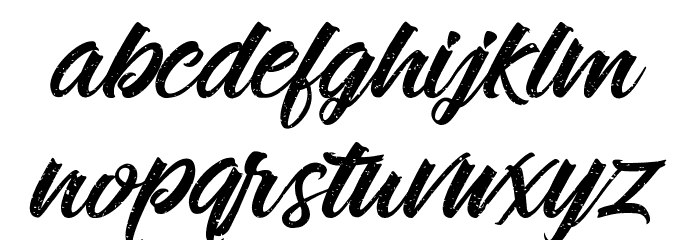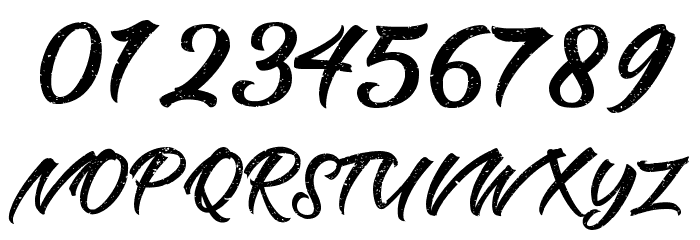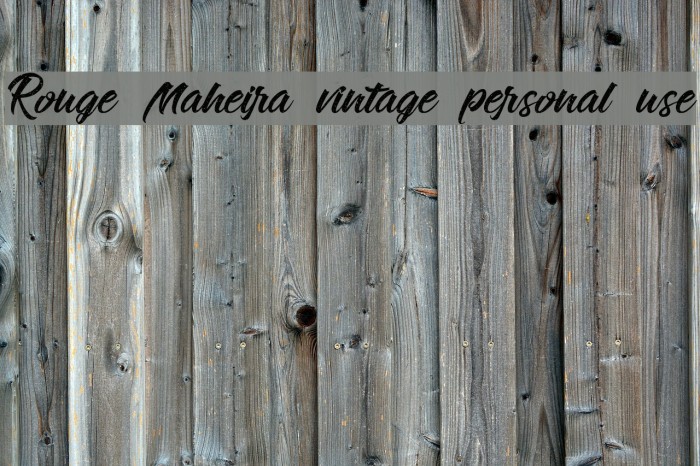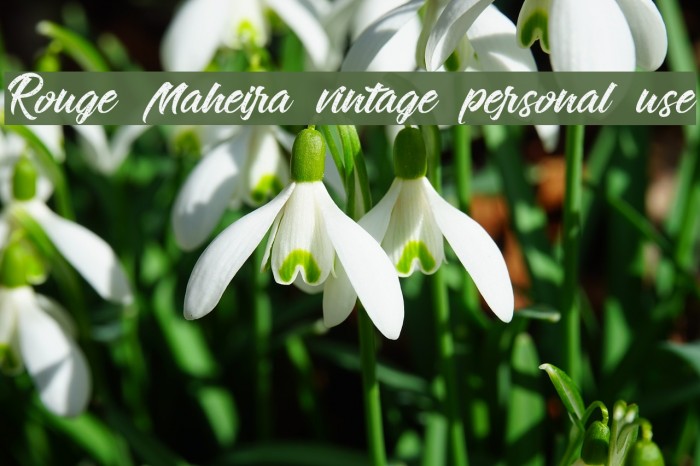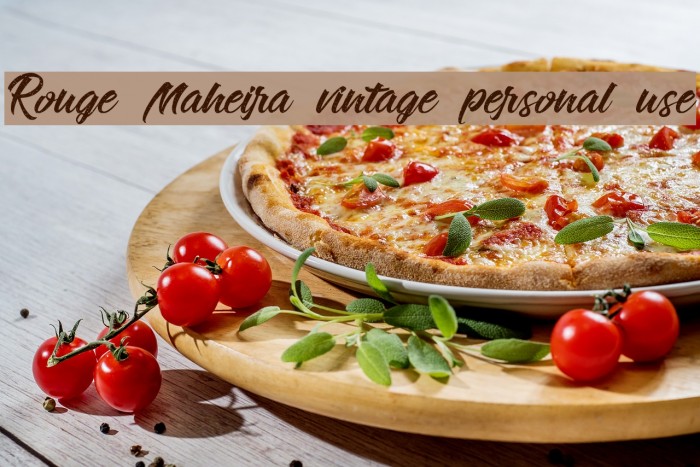
Rouge Maheira vintage personal use Font
This font features a bold, brush script style with a distressed, vintage texture. The characters are fluid and dynamic, with a hand-painted appearance that gives it a personal and artistic feel. The uppercase letters are slightly larger and more pronounced, while the lowercase letters maintain a consistent flow. The numbers are equally stylized, matching the overall aesthetic of the font. The special characters are designed to complement the letters, maintaining the same textured and handcrafted look. This font is ideal for projects that require a touch of nostalgia and creativity.
A bold, vintage brush script with a distressed texture.
- Proposed Projects: Ideal for vintage-themed posters, branding, logos, and artistic projects that require a handcrafted feel.
- Overall Style: Vintage
- Use Case: Logos, Posters, Branding